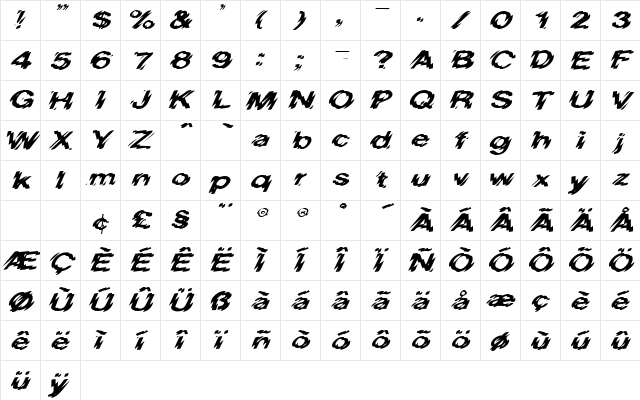
HighVoltageExtended Italic
Design Context for HighVoltageExtended Typeface
HighVoltageExtended is a composed and adaptable typeface that performs quietly and consistently across a wide range of design contexts. Its italic angle brings a sense of urgency and motion to the letterforms.
Pro Tip: Use HighVoltageExtended for emphasis, pull quotes, and subheadings where its slanted energy can add rhythm to the layout.